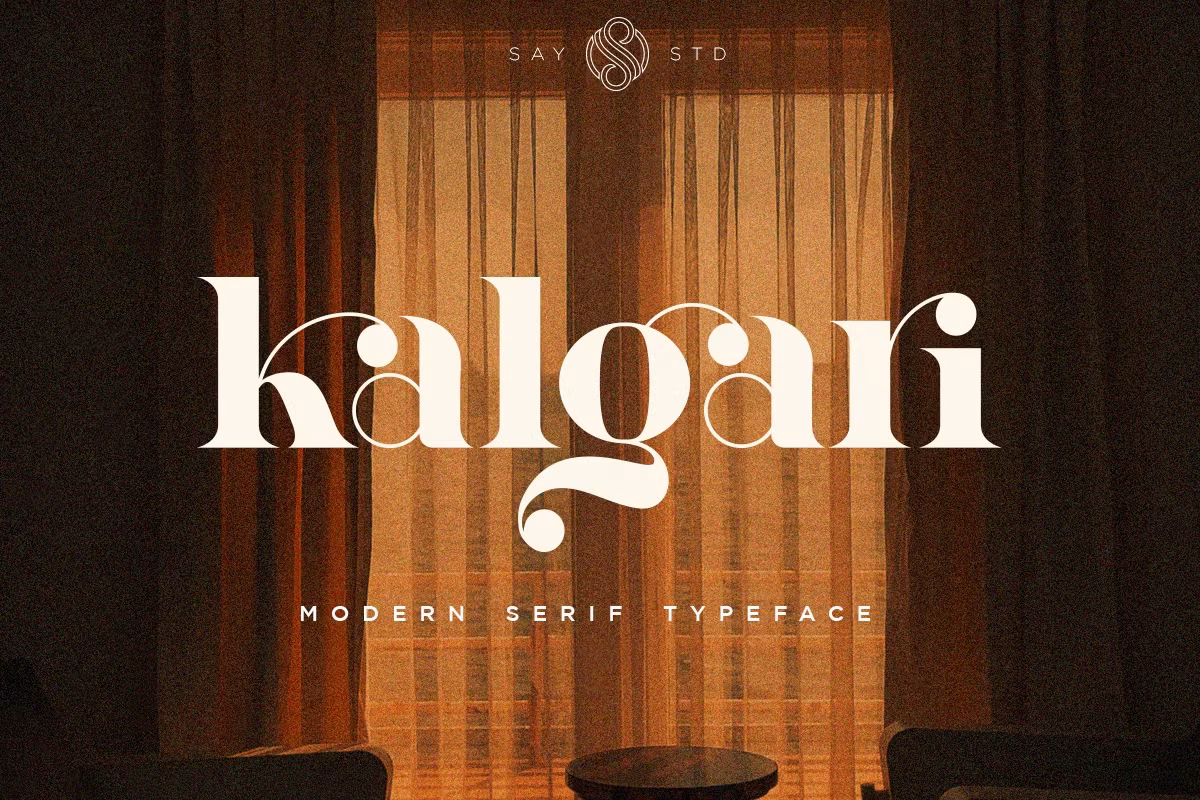
With its clean lines, sharp details, and confident presence, Kalgari is perfect for branding, headlines, logos, posters, apparel, and digital content that needs to make a statement. Whether you're designing for fashion, sports, or tech, this font delivers power and professionalism in every letter.